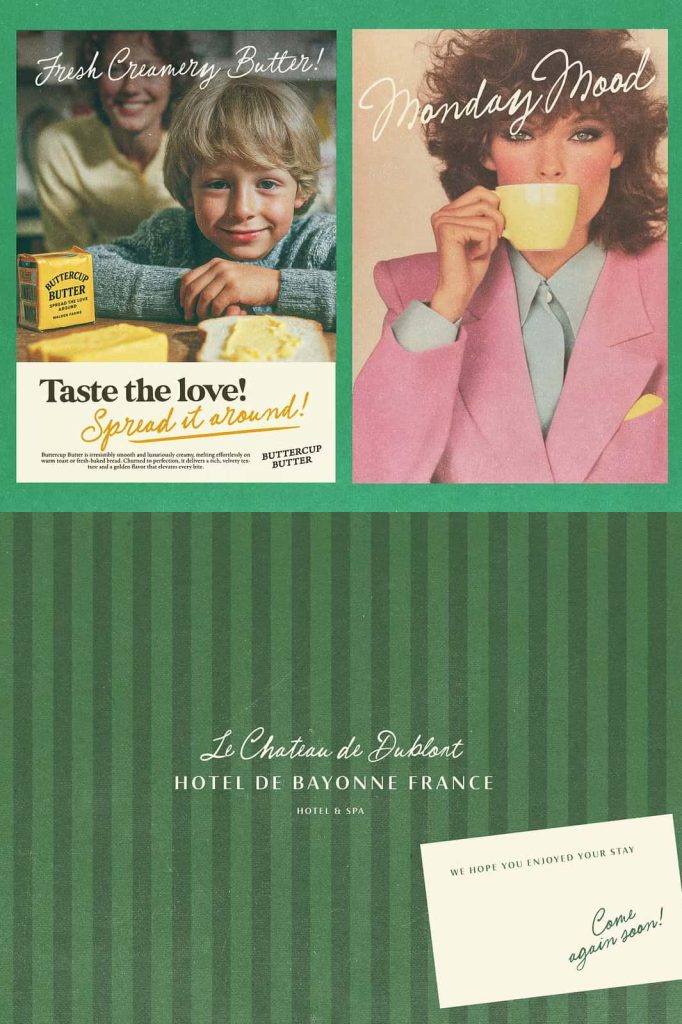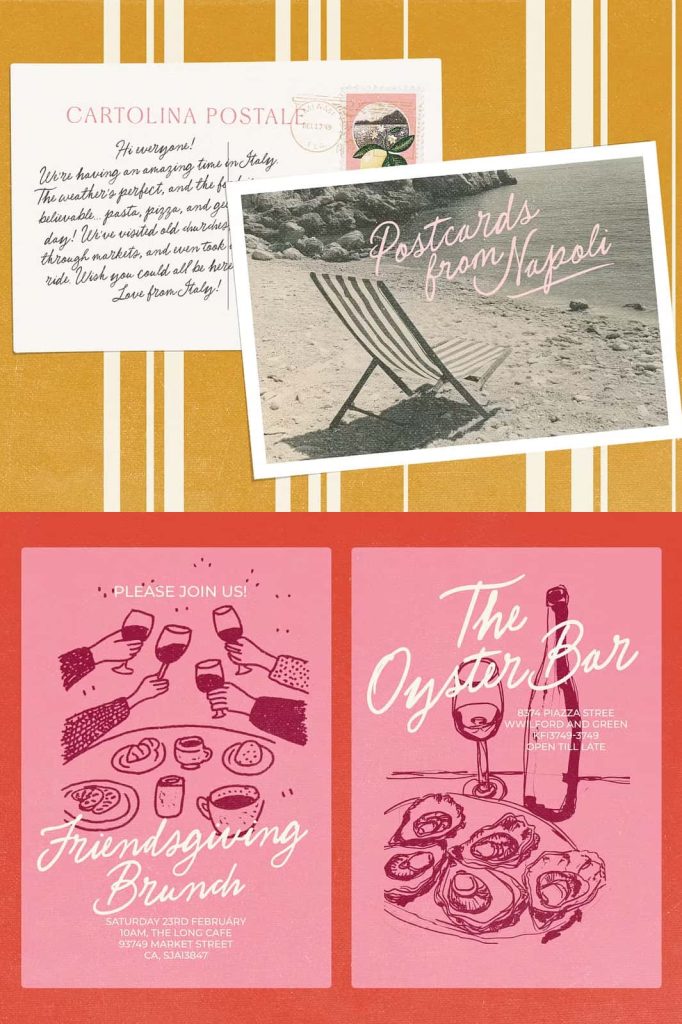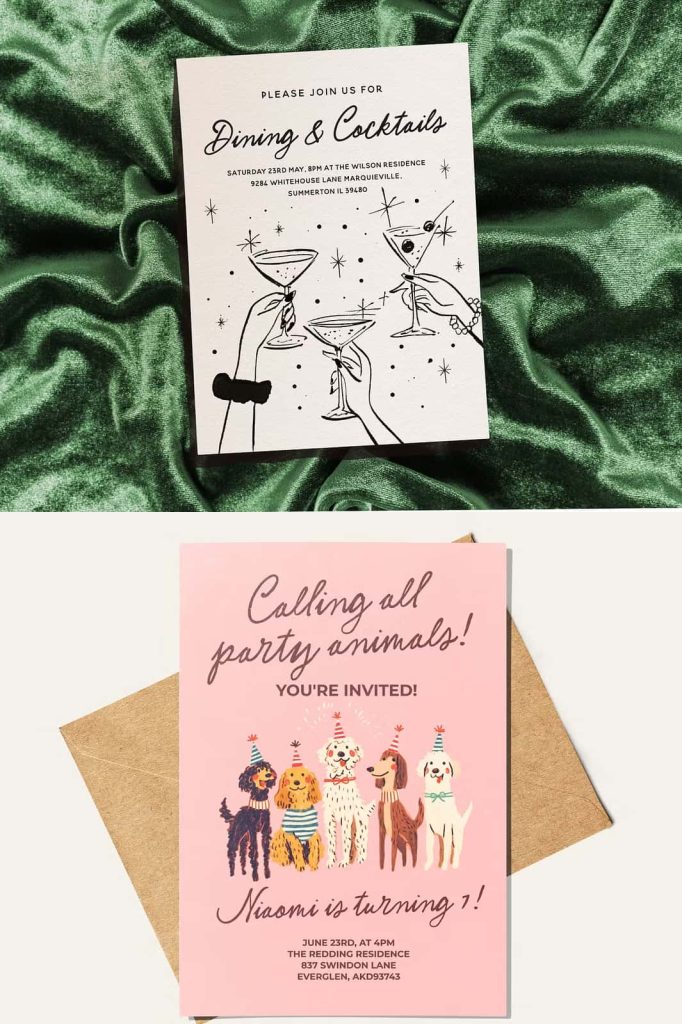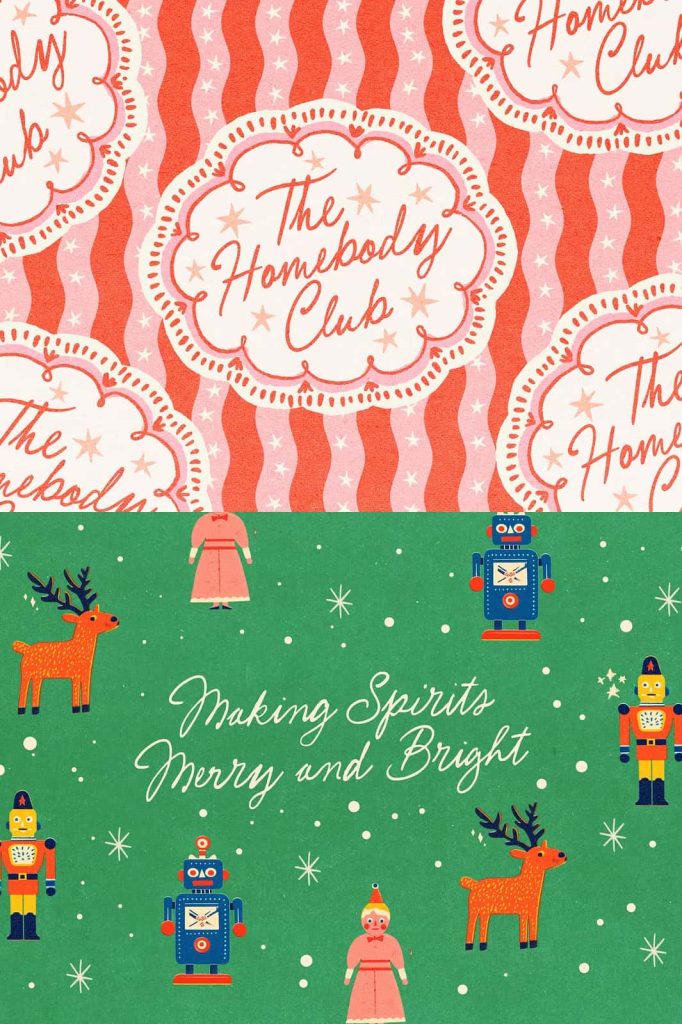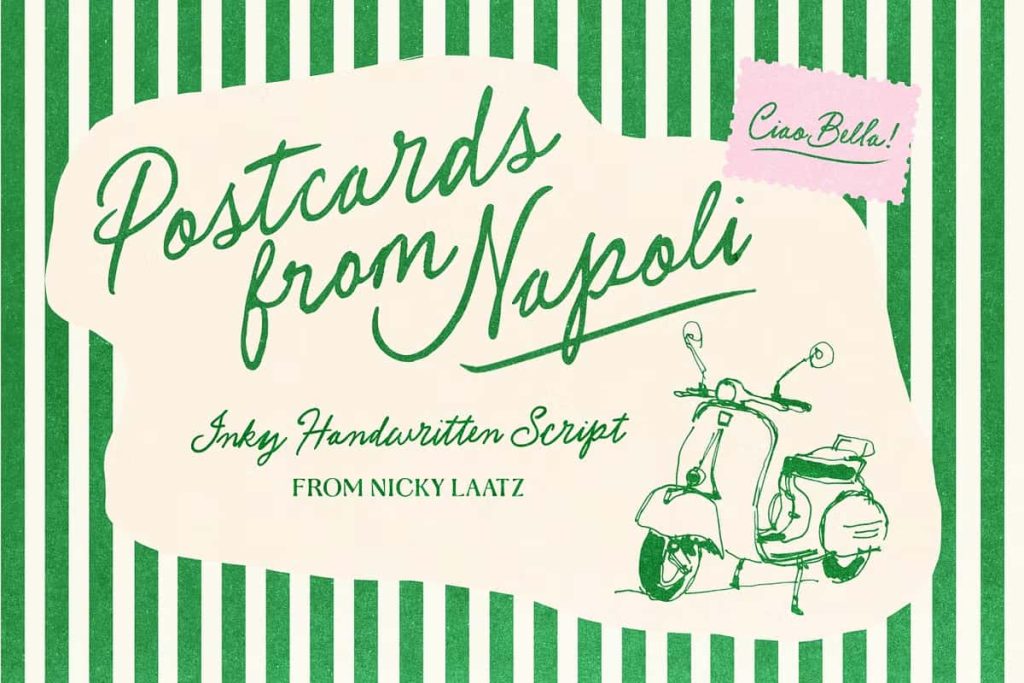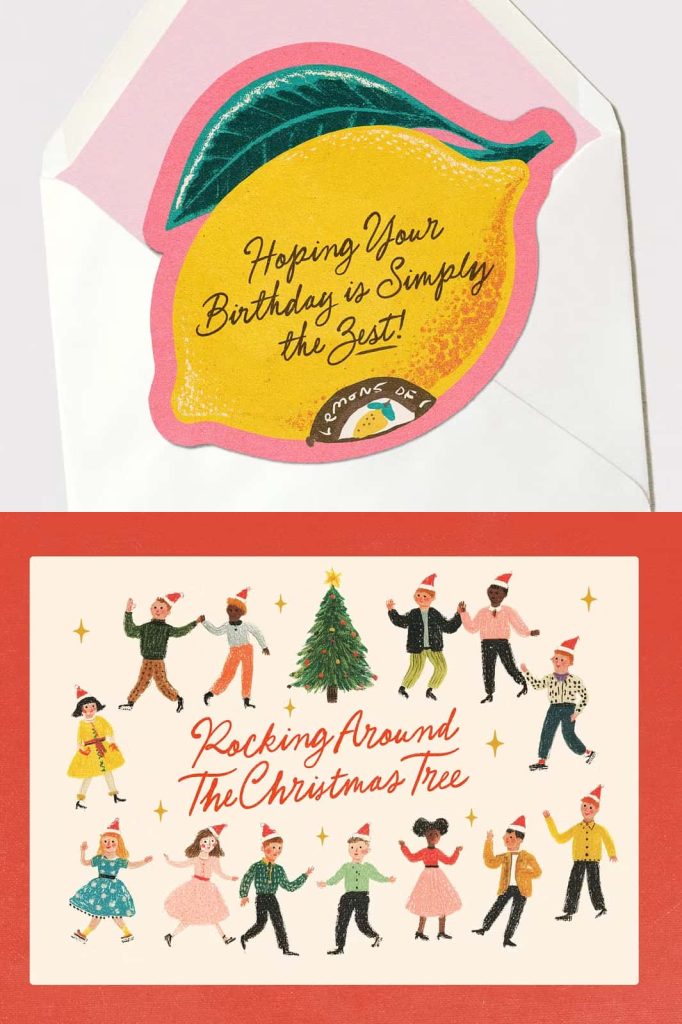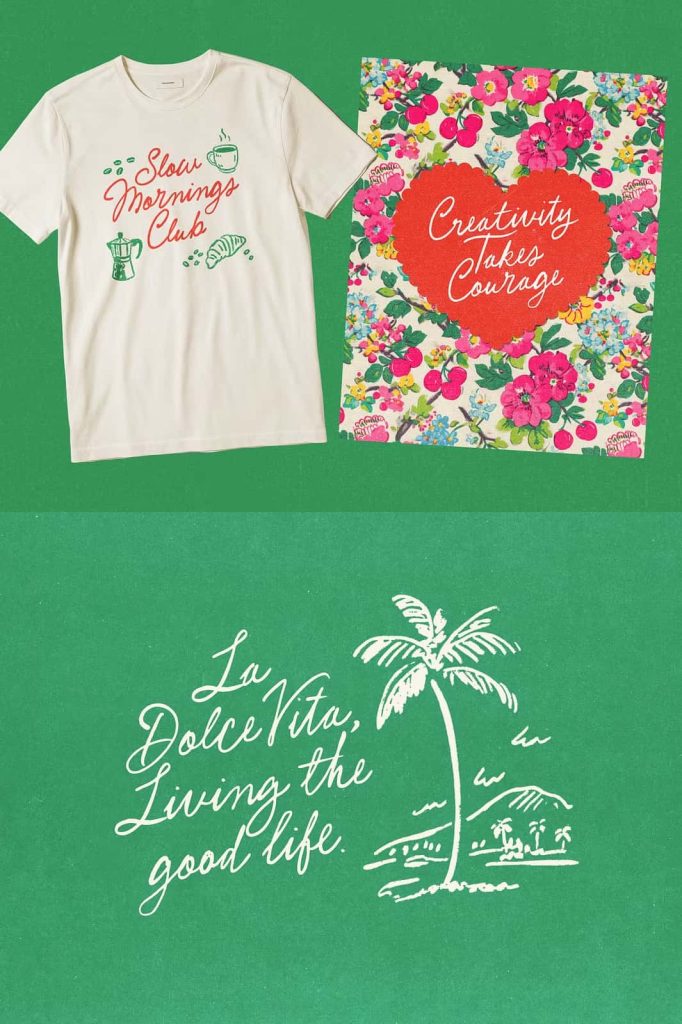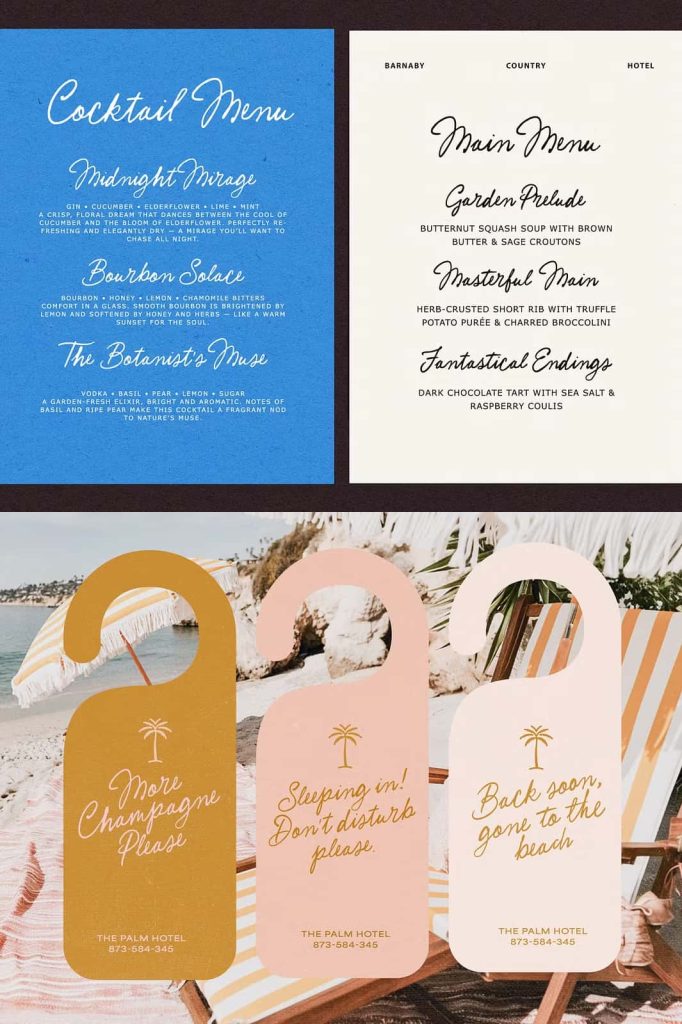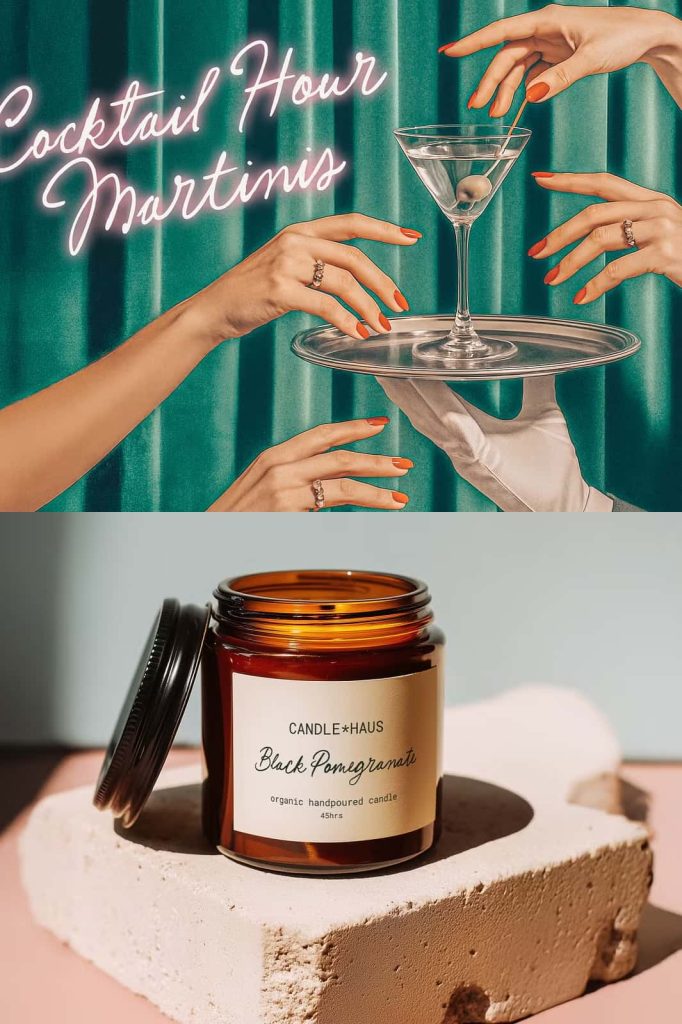
Postcards from Napoli Font
Postcards from Napoli is a beautifully crafted display font that captures the romance, warmth, and effortless charm of Italy. Inspired by the picturesque streets of Naples, vintage travel postcards, and the relaxed beauty of the Mediterranean lifestyle, this typeface brings elegance and personality into every creative project. It combines chic sophistication with playful energy, creating a font that feels both stylish and approachable.
Whether you’re designing luxury branding, wedding stationery, fashion campaigns, product packaging, or eye-catching social media graphics, Postcards from Napoli delivers a distinctive visual style that immediately attracts attention. Its graceful letterforms, expressive details, and artistic personality allow designers to create memorable typography with ease.
More than just a decorative display font, Postcards from Napoli is a versatile creative tool that adapts beautifully across a wide variety of design styles. From elegant editorials to playful branding, this font helps transform ordinary typography into unforgettable visual storytelling.
A Typeface Inspired by Italian Romance
Every letter in Postcards from Napoli reflects the timeless beauty of Italian culture. Inspired by handwritten postcards, charming cafés, coastal villages, and fashionable city streets, this font evokes feelings of wanderlust, creativity, and joyful living.
The letterforms combine flowing curves with refined proportions, creating typography that feels natural, inviting, and full of personality. Rather than appearing rigid or overly formal, the font maintains an organic rhythm that makes every headline feel authentic and expressive.
This balance between elegance and playfulness allows the font to communicate luxury without becoming intimidating, making it suitable for both premium and casual design projects.
Elegant Yet Playful Character
One of the defining features of Postcards from Napoli is its ability to balance sophistication with charm. The font feels fashionable and refined while maintaining a lighthearted personality that keeps designs fresh and approachable.
Its stylish letterforms make it ideal for projects that require a premium appearance, while its playful details introduce warmth and creativity. This unique combination gives designers the freedom to build brands that feel luxurious yet welcoming.
Whether you’re creating a boutique logo or a colorful travel poster, the font adapts effortlessly to your creative vision.
Perfect for Many Creative Applications
Postcards from Napoli is designed to work across a broad range of creative industries and design styles. Its versatility allows designers to use the font confidently in both digital and print media.
This font is an excellent choice for:
- Luxury branding
- Fashion logos
- Beauty product packaging
- Lifestyle branding
- Travel posters
- Editorial magazines
- Book covers
- Wedding invitations
- Greeting cards
- Restaurant branding
- Café menus
- Product packaging
- Instagram posts
- YouTube thumbnails
- Website headers
- Advertising campaigns
- Creative portfolios
- Art prints
- Merchandise designs
Create Beautiful Branding
Typography plays a significant role in establishing a memorable brand identity, and Postcards from Napoli offers everything needed to create branding that feels unique and sophisticated. The expressive letterforms naturally draw attention while maintaining excellent visual harmony.
Whether you’re building a fashion label, launching a skincare brand, opening a boutique café, or promoting a travel business, this font helps communicate elegance, creativity, and authenticity.
Its stylish appearance leaves a lasting impression while allowing your brand personality to shine.
Ideal for Editorial and Display Typography
Large headlines and editorial layouts are where Postcards from Napoli truly excels. The carefully crafted proportions and artistic details create strong visual impact without sacrificing readability.
Magazine covers, promotional headlines, advertisements, and website banners all benefit from the font’s sophisticated appearance. It pairs beautifully with minimalist sans serif fonts, modern layouts, and elegant photography to create premium editorial compositions.
The font also performs exceptionally well in print, making it suitable for brochures, catalogs, invitations, posters, and marketing materials.
Versatile for Digital and Print Design
Modern designers need fonts that perform consistently across multiple platforms, and Postcards from Napoli delivers exactly that. Whether viewed on high-resolution screens or professionally printed materials, the font maintains its distinctive beauty and readability.
Its balanced design allows it to fit naturally into websites, mobile applications, digital advertising, product labels, presentation slides, and printed publications. This flexibility makes it a valuable addition to any designer’s font collection.
If you’re searching for a font that captures sophistication while maintaining warmth and personality, Postcards from Napoli is an outstanding choice. Its distinctive style, premium craftsmanship, and adaptable design make it an essential typeface for designers looking to create memorable visual identities and engaging creative experiences.